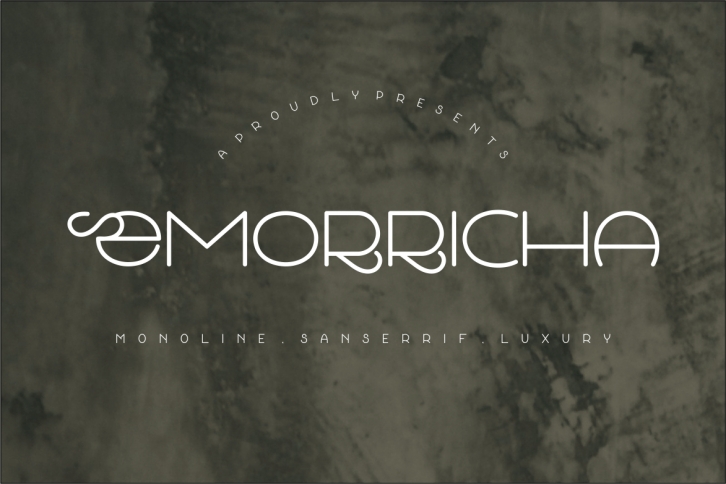
Emorricha is an exquisite and refined sans serif font. With its stylish and elegant character, it can enhance your creative ideas, adding an extra touch of luxury and sophistication.